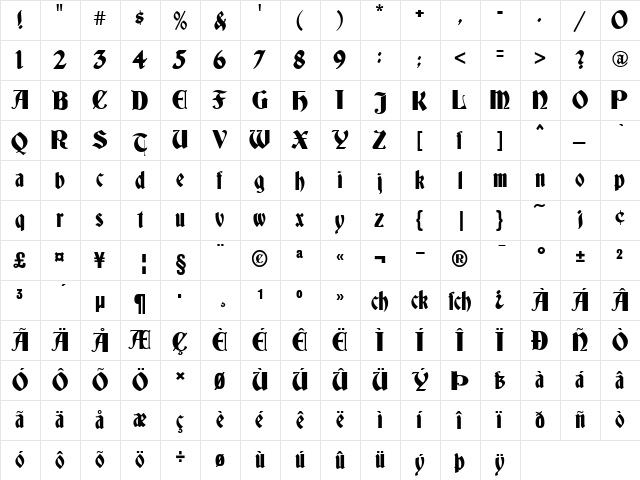
Germania Regular
Design Context for Germania Typeface
Germania is a composed and adaptable typeface that performs quietly and consistently across a wide range of design contexts.